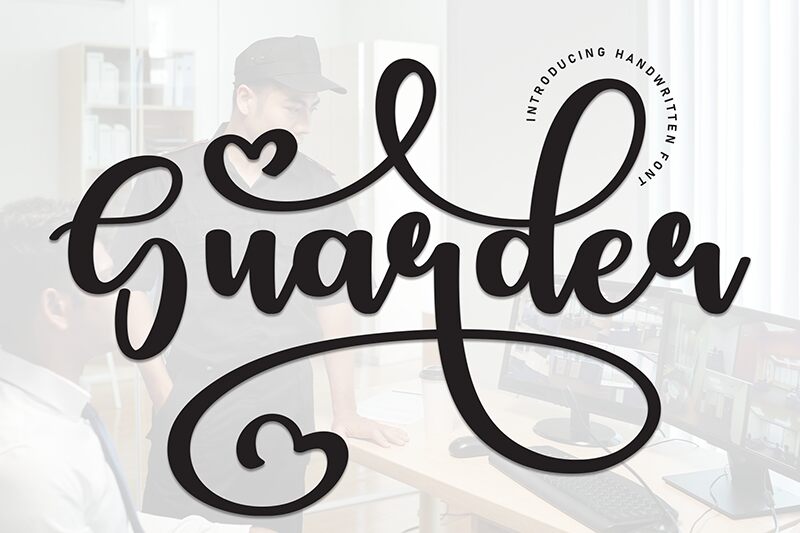
Guarder
Guarder font is a free brush font by Scratchones with an elegant design and smooth flow. The modern script style offers visual interest with its artistic flair and cohesive appearance, providing an excellent option for contemporary users interested in stylish resources.
Art designs, invitation cards, special quotes, marketing materials, posters, greeting cards are some of the projects that could benefit from this font. Websites headers and footers can also achieve exciting outcomes via Guarder as can logos.